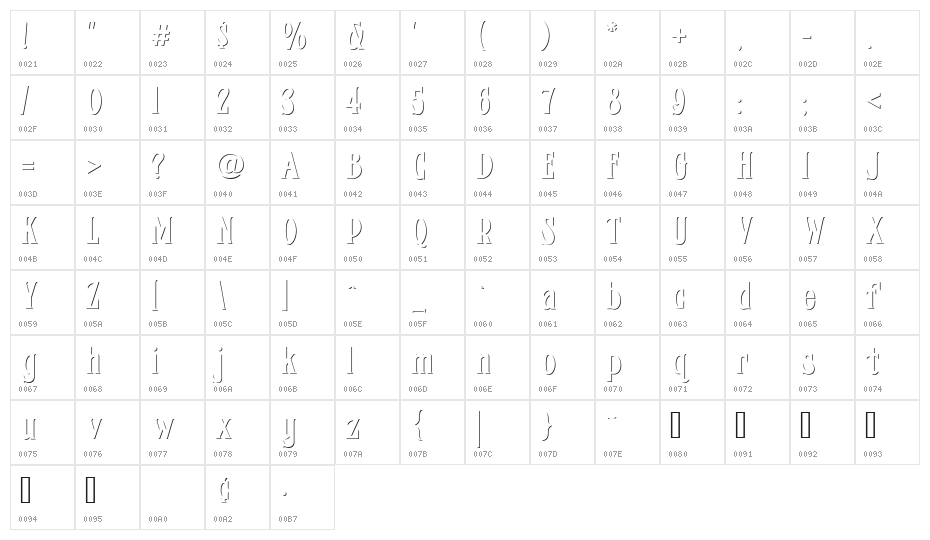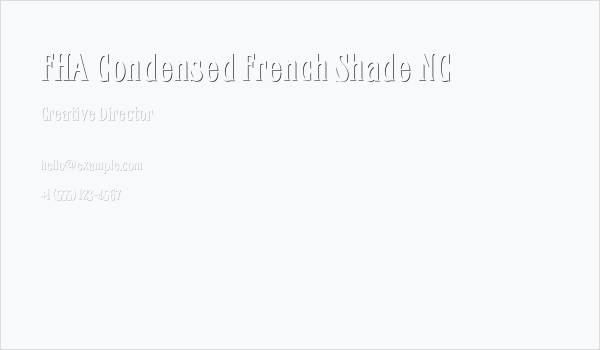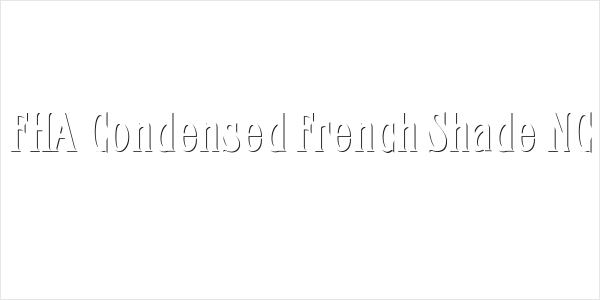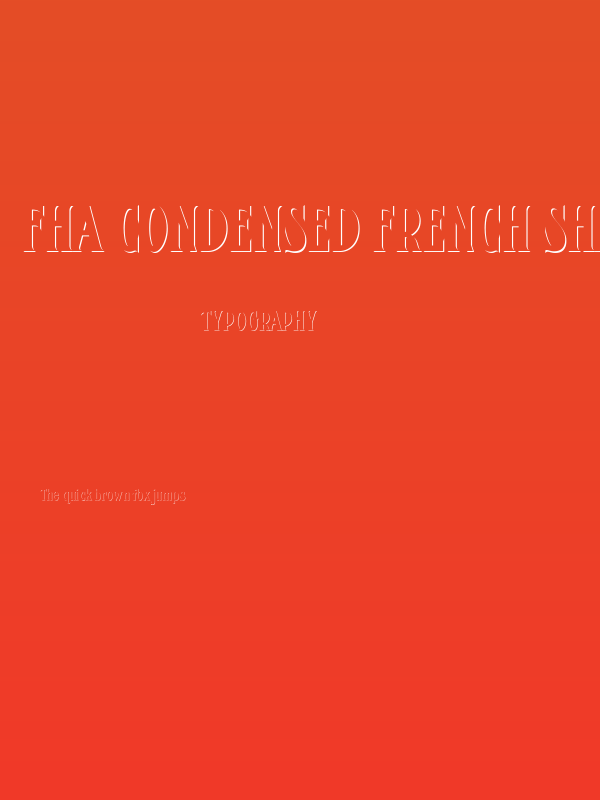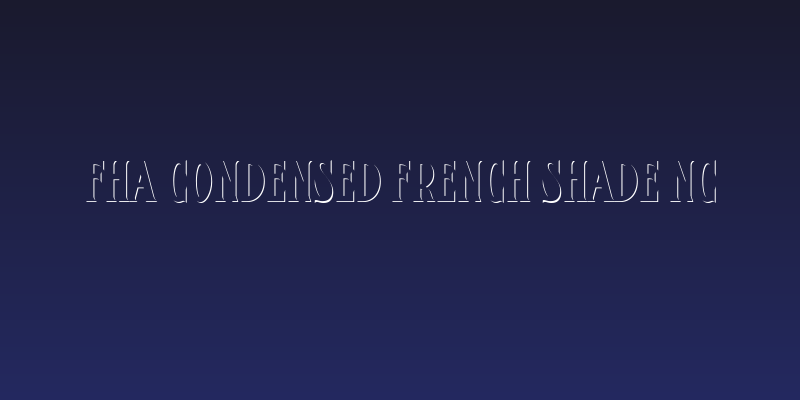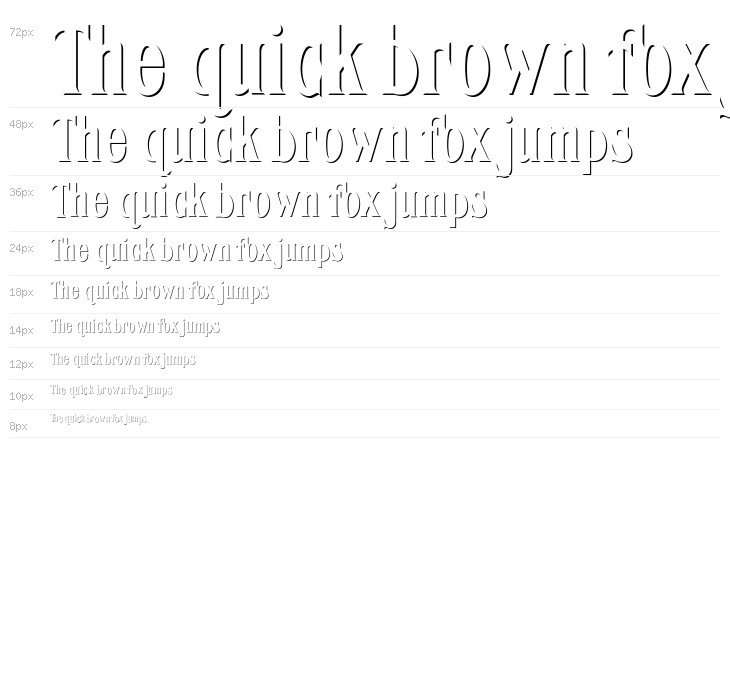
FHA Condensed French Shade NC Font
FHA Condensed French Shade NC Description
This font exhibits a unique blend of classic and decorative elements, characterized by its condensed letterforms and distinct shading effect. The uppercase and lowercase letters maintain a consistent height, contributing to a uniform appearance. The shading adds depth and a three-dimensional quality, making it stand out in various design contexts. The numerals and special characters are styled to match the overall aesthetic, ensuring cohesion across all elements. This font is particularly suited for projects that require a touch of elegance and sophistication, while still maintaining readability.